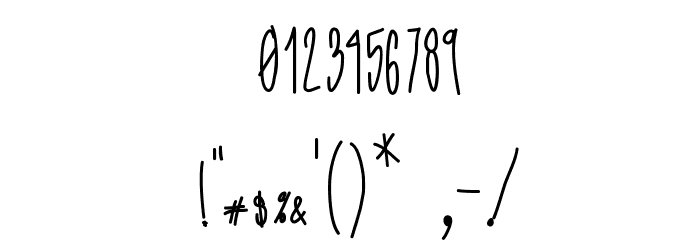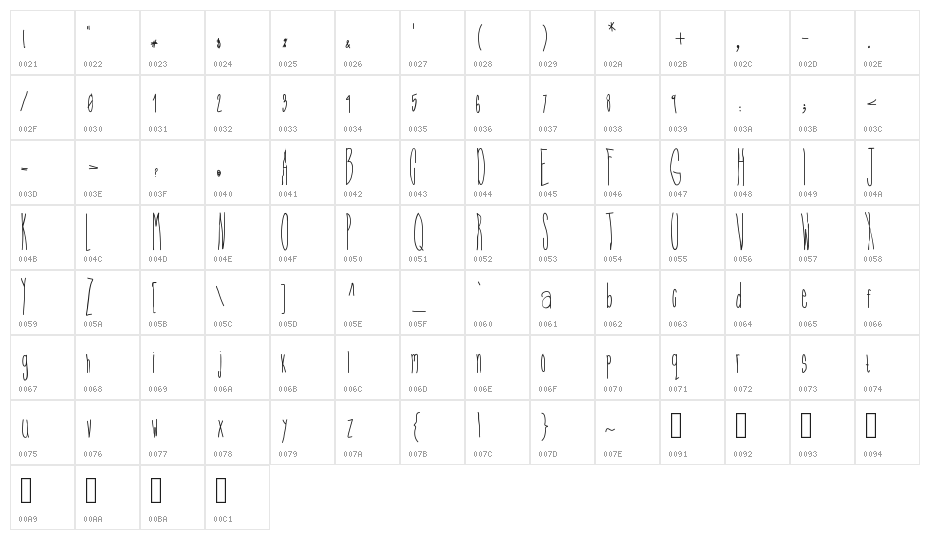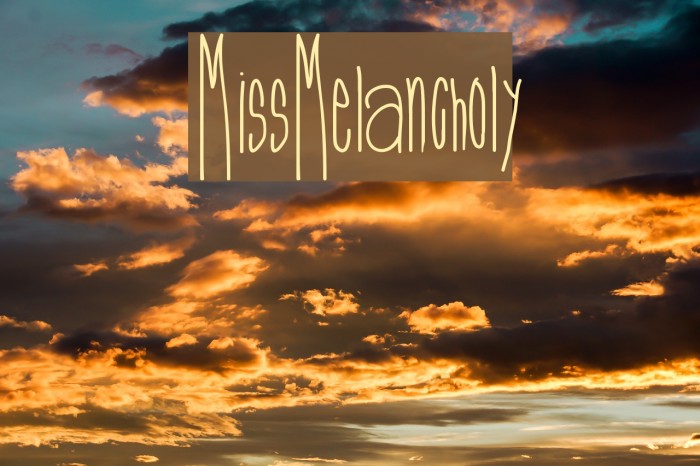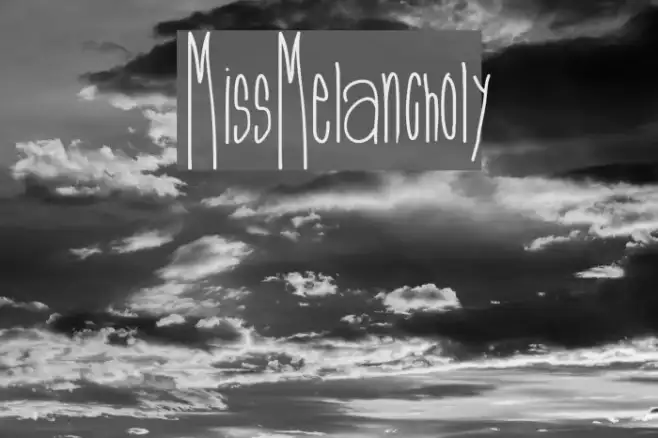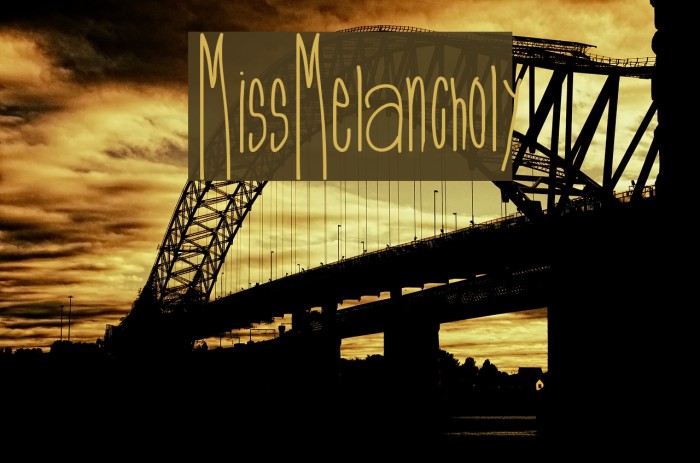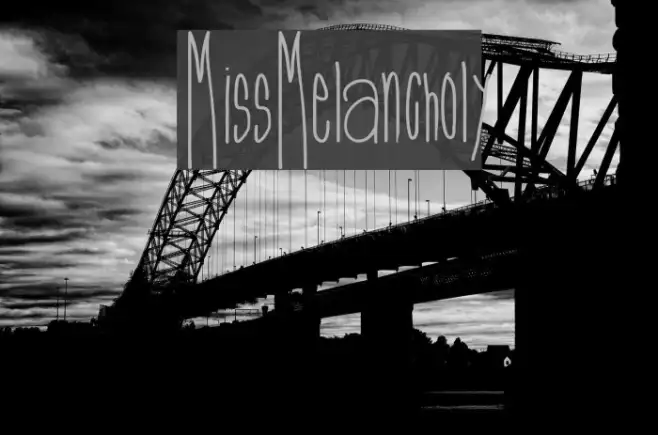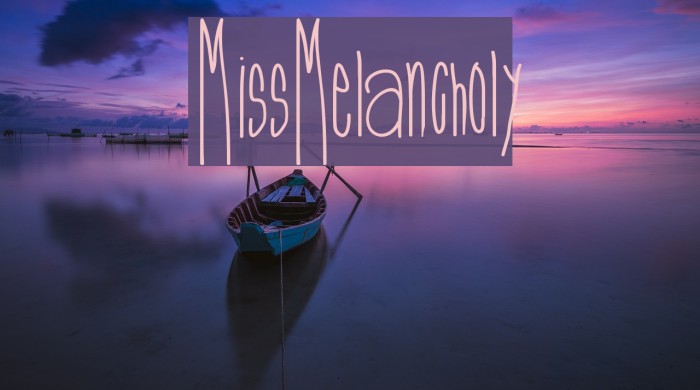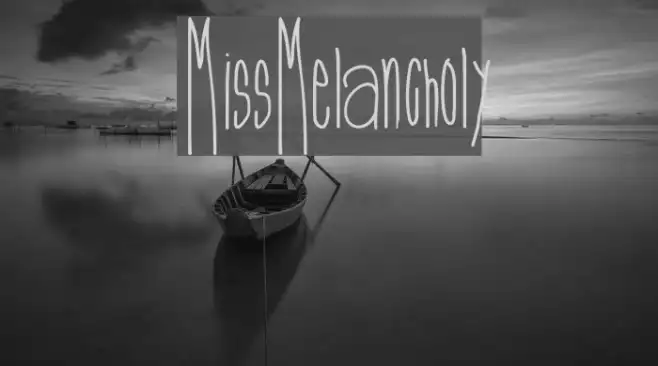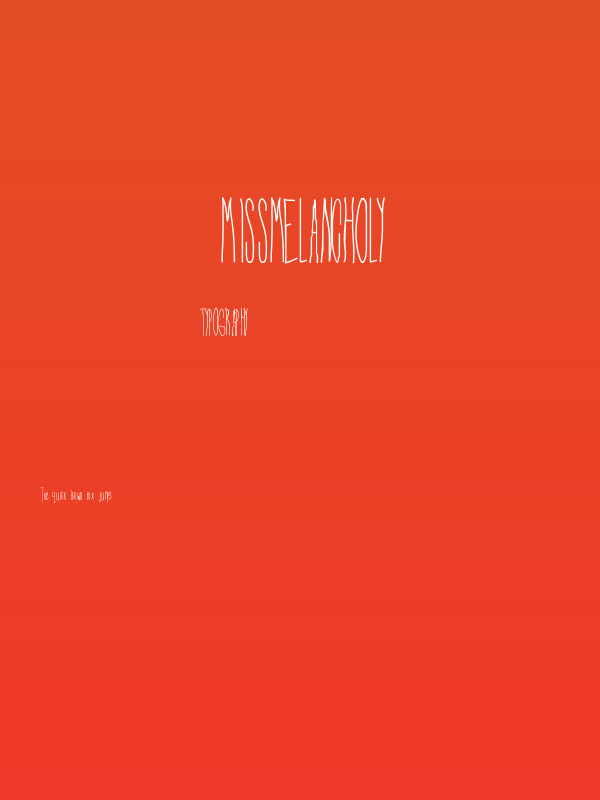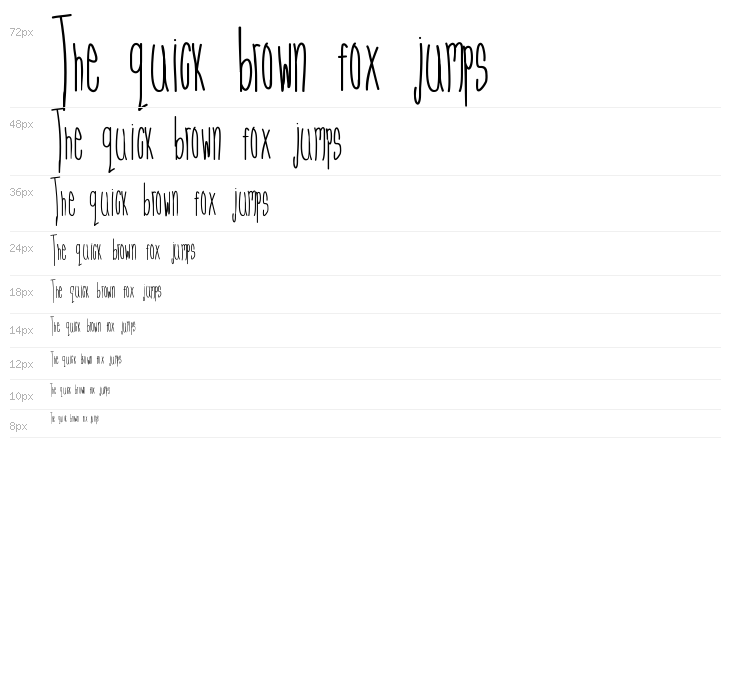
MissMelancholy Font
MissMelancholy Description
This font features an elongated and whimsical design, characterized by its tall, narrow letters that convey a sense of playfulness and uniqueness. The strokes are thin and consistent, giving it a delicate appearance. The uppercase letters are particularly elongated, while the lowercase letters maintain a more traditional height, creating an interesting contrast. The numbers and special characters follow the same slender style, ensuring a cohesive look across all glyphs. This font's quirky and artistic nature makes it stand out, perfect for creative projects that require a touch of individuality.
| Overall Style | Whimsical |
| Proposed Projects | Ideal for artistic projects, children's books, greeting cards, and creative branding. |